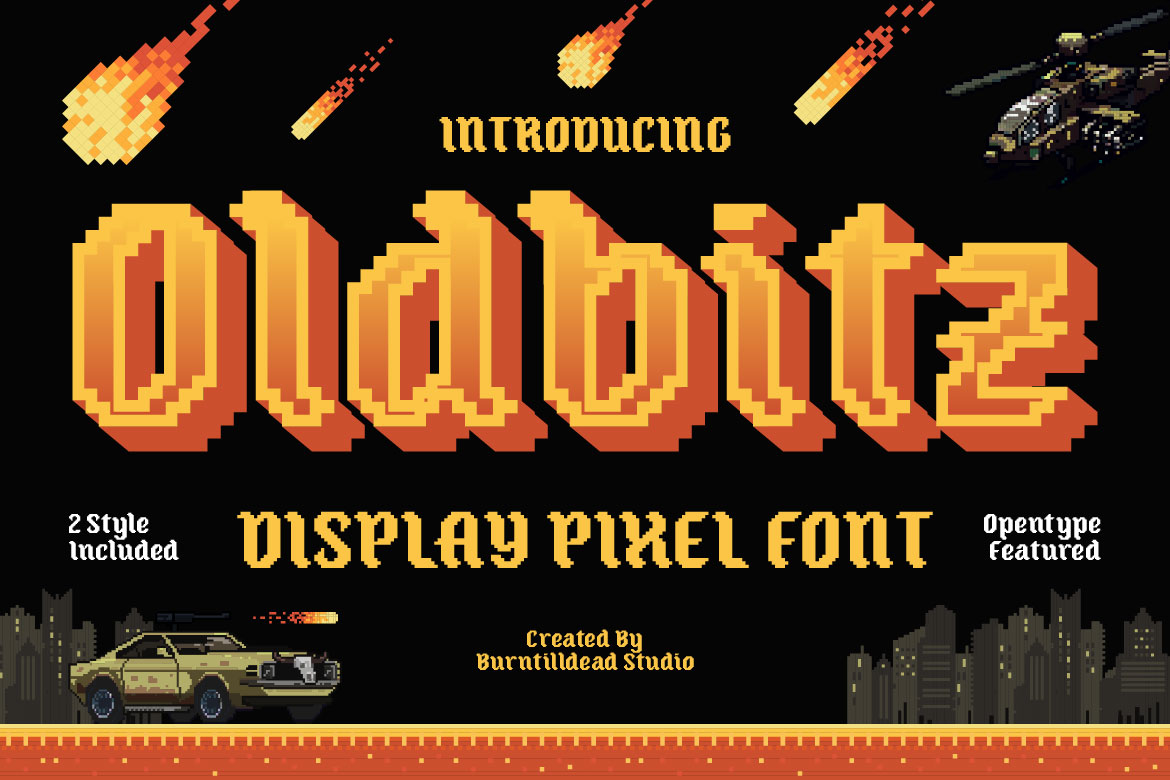
When it comes to design trends, some styles never really fade away. Pixel fonts are the perfect example. With their nostalgic, 8-bit look, pixel fonts instantly bring back memories of old-school video games, arcade machines, and that retro computer era we all secretly love. But here’s the cool part: pixel fonts aren’t just for retro themed projects anymore, they’re making a big comeback in modern design, too!
Pixel fonts carry a special kind of charm. They feel playful, bold, and unapologetically retro. That blocky, low resolution vibe makes them stand out in a world of super-polished, minimal typefaces. Designers love using them because they:
Pixel fonts aren’t just for gaming projects (though they totally shine there). You can use them for:
If you’re ready to try pixel fonts in your own projects, here are some of our top picks from Burntilldead Studio:
Time to bring back the golden age of pixels with Oldbitz! This bold display font mixes retro arcade vibes with chunky pixel strokes and a touch of vintage gothic style.
Oldbitz comes in 2 styles to fit your creative mood, Regular (clean, strong, and perfect for straightforward titles). Shadow (playful, bold, with a retro 3D arcade punch).
So if you’re designing game covers, posters, album art, or anything that craves nostalgic vibes, Oldbitz will make your design unique and stand out.
Bring back the pixels, bring back the fun.
Step into the pixel kingdom with Valmeria, a unique typeface that blends the bold spirit of medieval blackletter with the retro charm of pixel art.
This font is all about drama and sharp edges style, pixel perfect curves, and that old-school gothic vibe that feels straight out of a dark fantasy RPG. Whether you’re working on a pixel game, a vintage poster, or just wanna give your design some epic knight energy, Valmeria is here to rule.
Comes in Regular and Extrude styles, so you can keep it clean or go extra bold with a striking 3D look. Plus, it’s packed with uppercase, lowercase, numbers, and symbols—ready to bring your medieval pixel dreams to life.
If you’re into pixel art, gaming aesthetics, or just love fonts that stand out, Valmeria is the perfect weapon of choice.
Here’s the trick: pixel fonts don’t always have to scream retro. Pair them with clean sans-serif fonts or sleek color palettes, and suddenly you’ve got a modern aesthetic with a twist of nostalgia. It’s that balance between old-school and fresh that makes pixel fonts so versatile in today’s creative scene.
Pixel fonts are more than just a throwback, they’re a design statement. Whether you’re working on a gaming project, branding, or just want something bold and different, pixel fonts are here to bring that retro energy to your work.